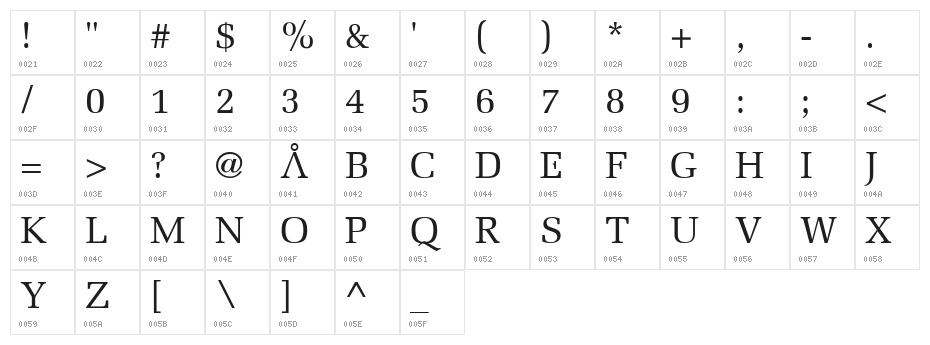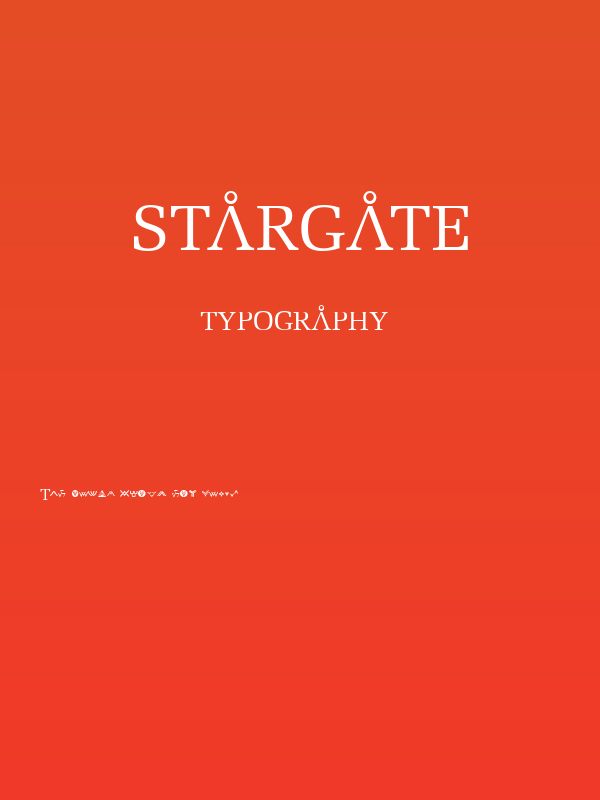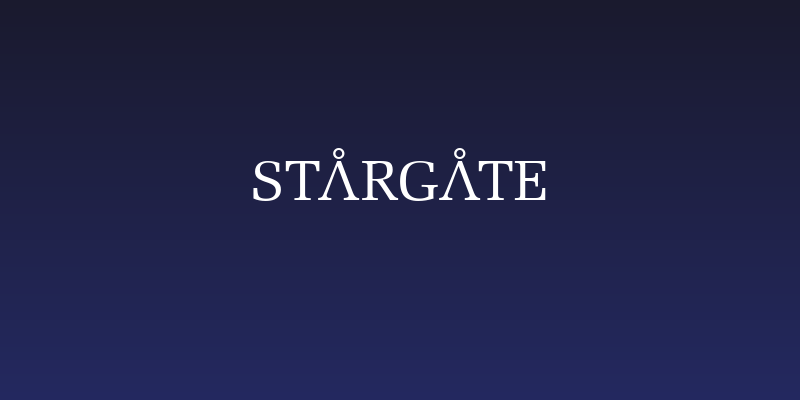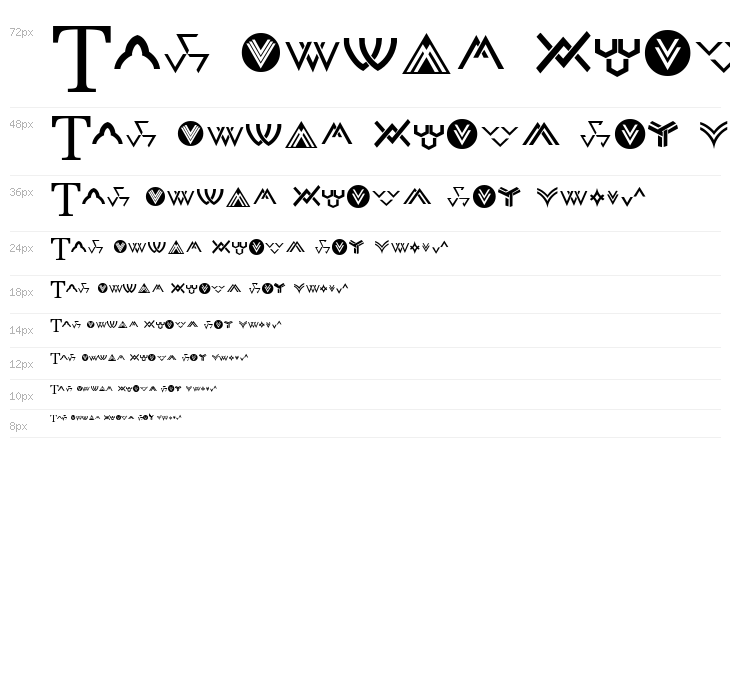
Stargate Font
Stargate Description
This font presents a classic serif style with a modern twist, characterized by its clean lines and elegant curves. The uppercase letters are bold and commanding, while the lowercase letters maintain a refined and sophisticated appearance. The numerals are clear and easily readable, making them suitable for a variety of applications. The special characters are distinct and well-defined, adding versatility to the font. Overall, this font combines traditional serif elements with a contemporary aesthetic, making it suitable for both formal and creative projects.